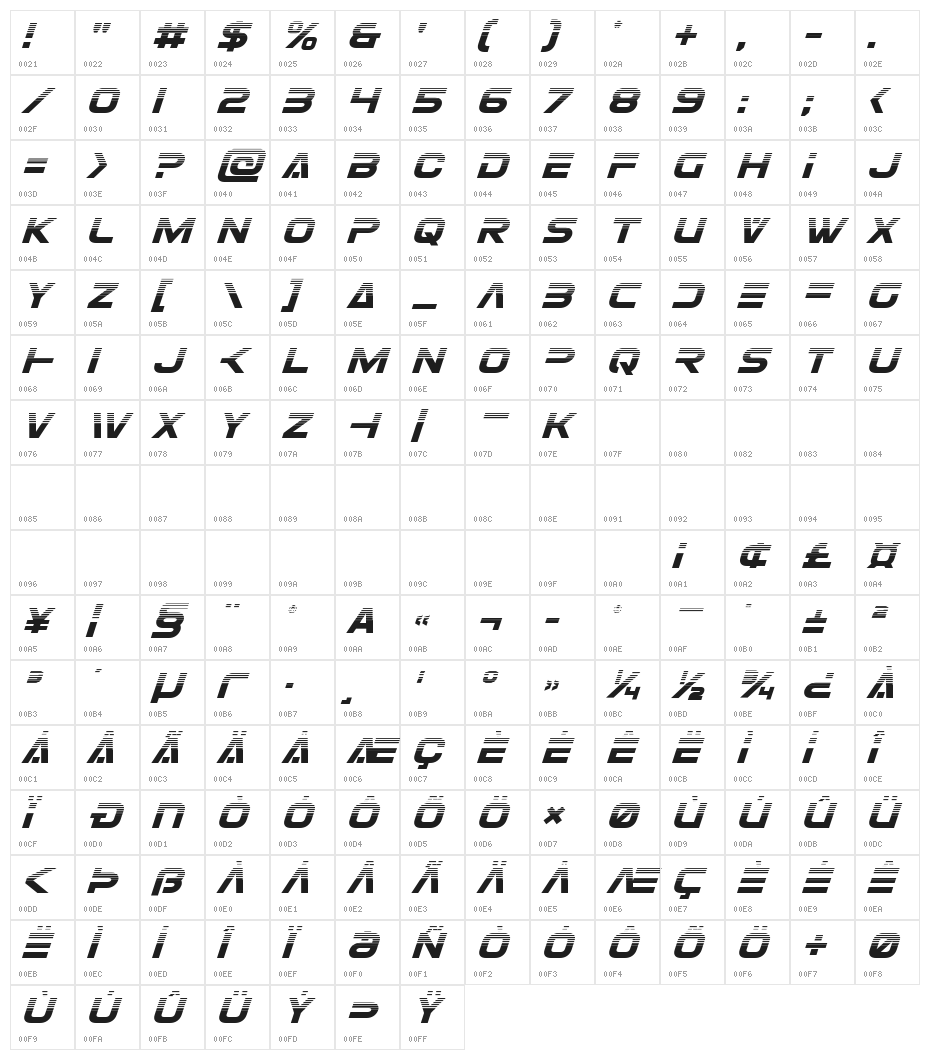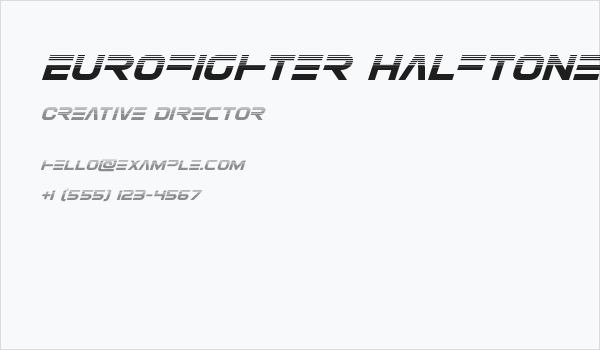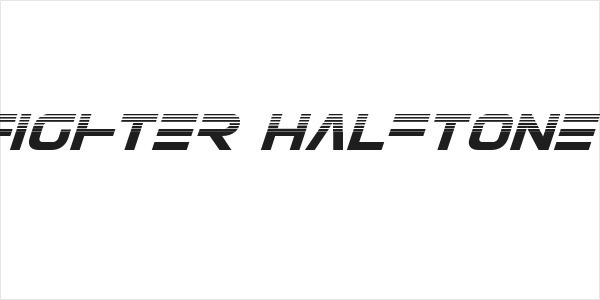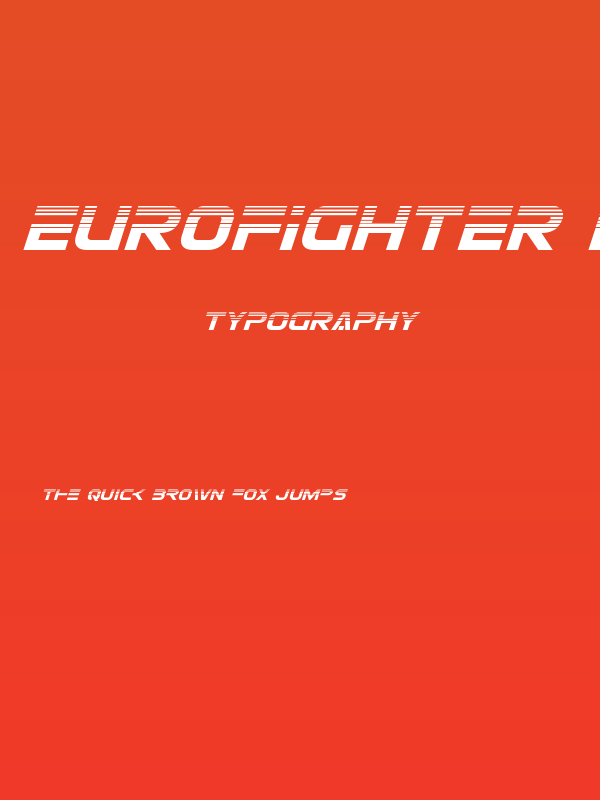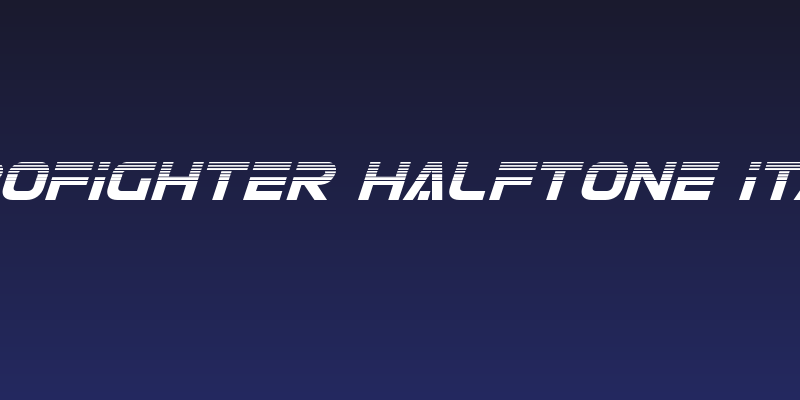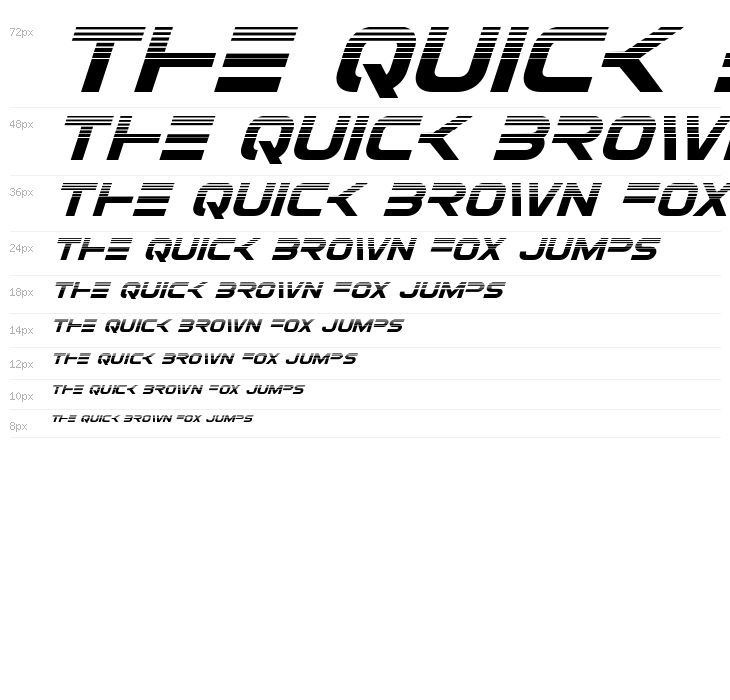
Eurofighter Halftone Italic Font
Eurofighter Halftone Italic Description
This font features a dynamic and futuristic design with a halftone effect that gives it a sense of motion and speed. The characters are italicized, adding to the impression of forward movement. Each letter is composed of solid and striped segments, creating a unique visual rhythm. The bold strokes and angular cuts contribute to a modern and edgy appearance. The font maintains consistent spacing, ensuring readability while emphasizing its distinctive style. Ideal for projects that require a bold and energetic look, this typeface stands out with its innovative design.
| Proposed Projects | Perfect for sports branding, automotive advertisements, video game titles, and tech-related logos. |